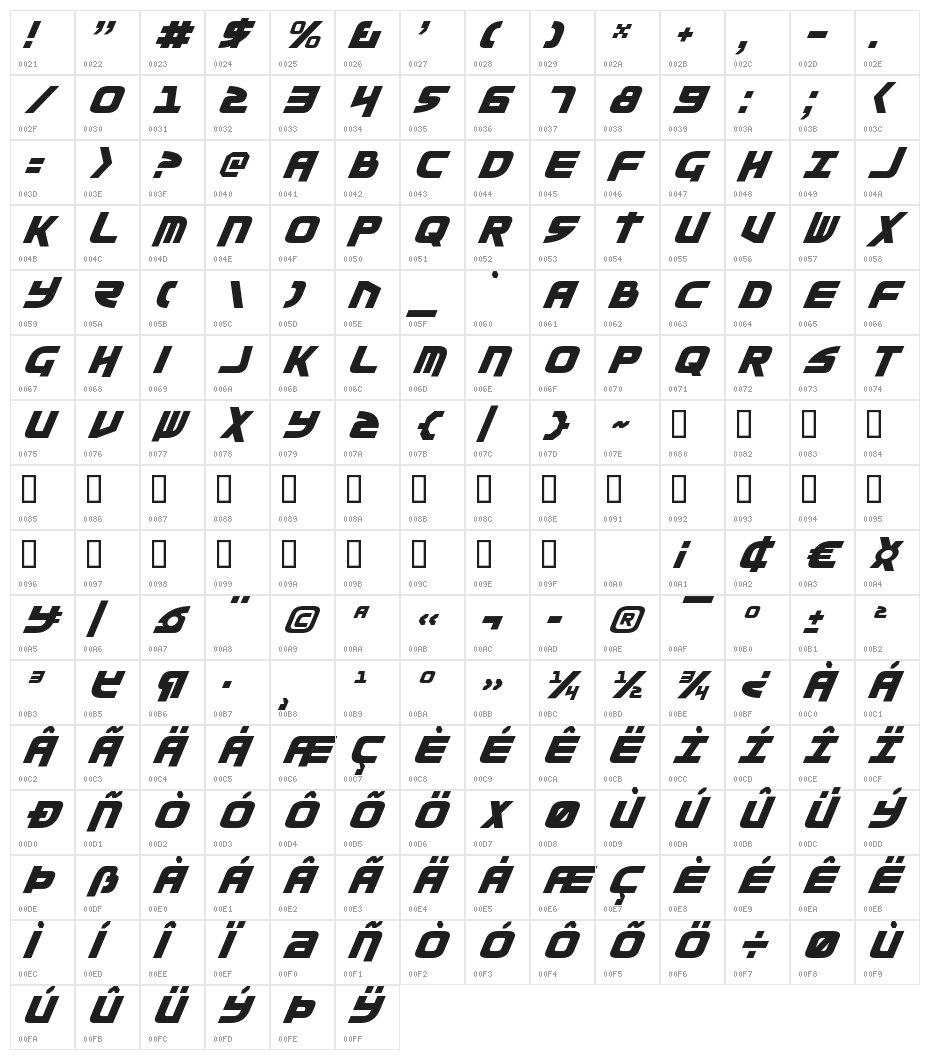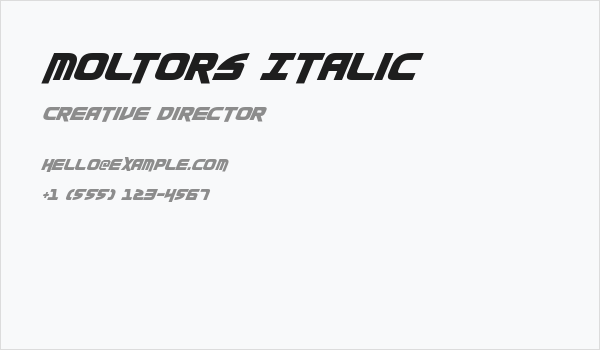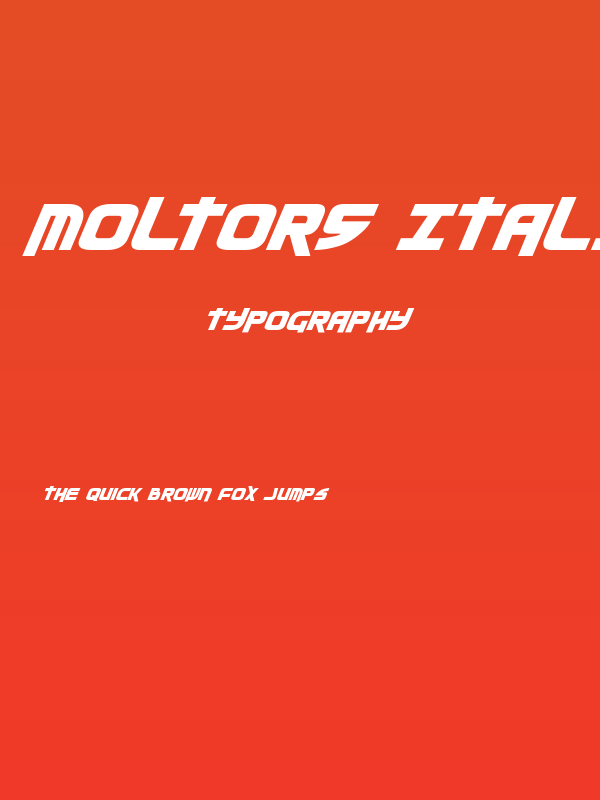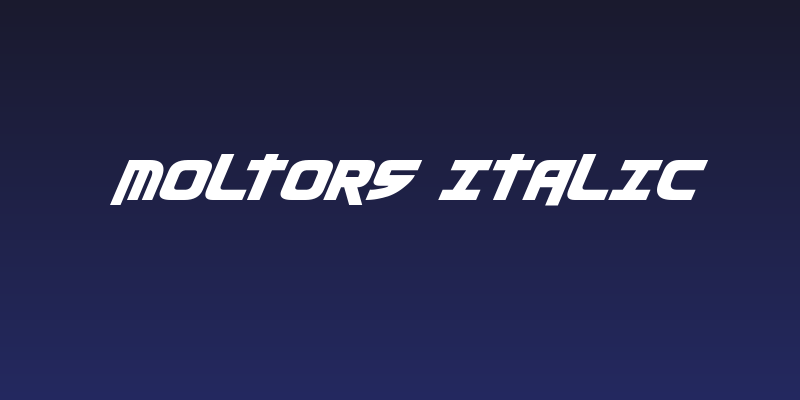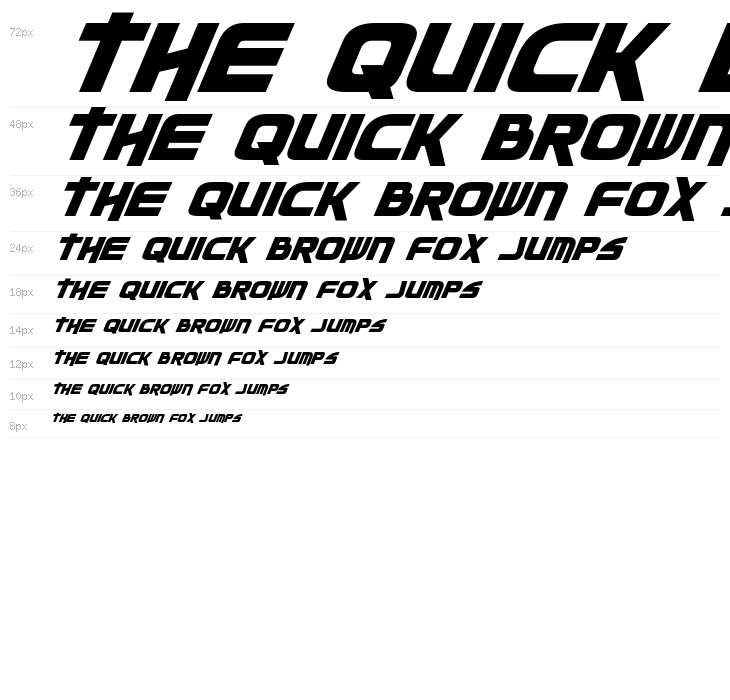
Moltors Italic Font
Moltors Italic Description
This font features a bold, italicized style with a futuristic and dynamic appearance. The characters are slanted, giving a sense of motion and speed, which is further emphasized by the sharp angles and clean lines. The uppercase and lowercase letters maintain a consistent style, with a slight variation in size and proportion. The numbers and special characters follow the same design principles, ensuring uniformity across all glyphs. The overall look is modern and sleek, making it suitable for projects that require a strong and impactful visual presence.
| Use Case | Logos, Headlines |
| Proposed Projects | Ideal for use in technology branding, sports team logos, automotive advertisements, and video game titles. |